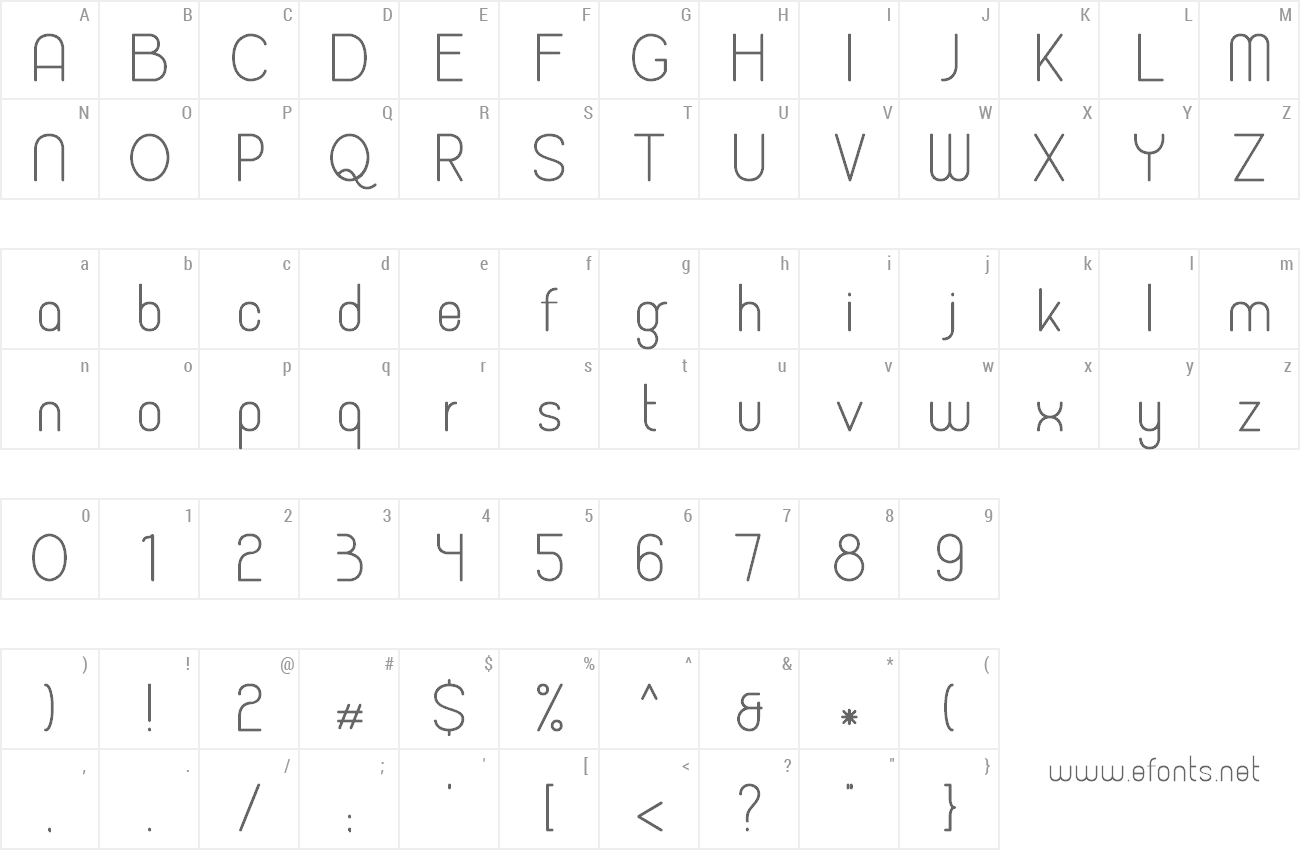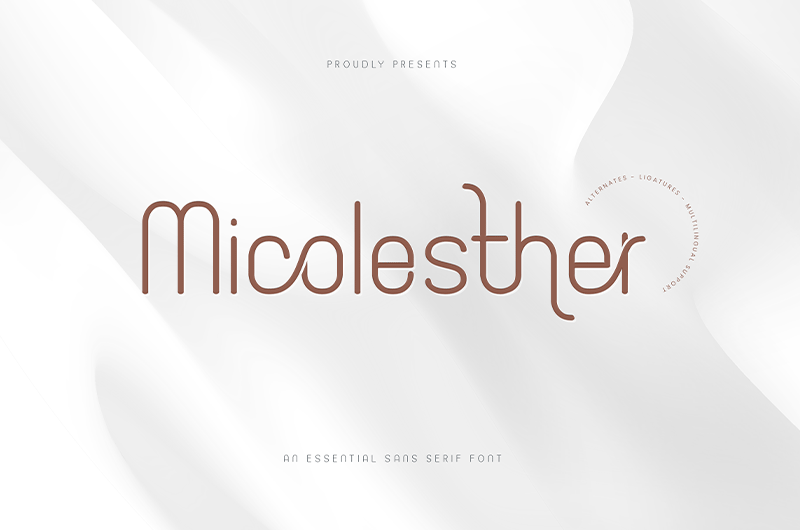
Micolesther is Modern Ligaturues Sans Serif Font with luxurious style. Available in 06 styles included alternates, ligatures and multilingual support. By installing or using this font, you are agree to the Product Usage Agreement: - This font is for PERSONAL USE ONLY. NO COMMERCIAL USE ALLOWED! - For Commercial Use, please contact us at namaracreativestudio@gmail.com - Any donation are very appreciated. Paypal E-Mail for donation : namaracreativestudio@gmail.com |